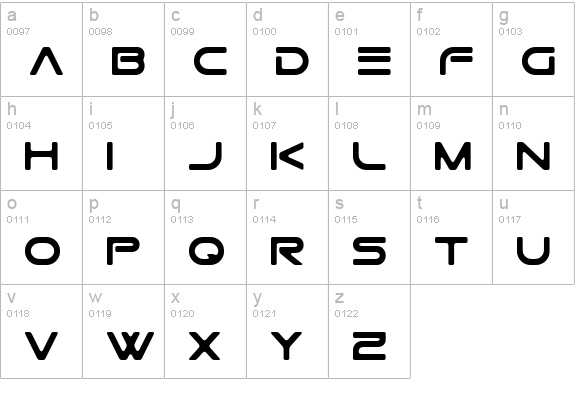
Gtek Technology Font Details
The Gtek Technology font is a modern and sleek typeface that perfectly captures the essence of technology and innovation. With its clean lines and sharp edges, this font exudes a sense of professionalism and sophistication. Designed with versatility in mind, Gtek Technology can be used for a wide range of design projects, from digital interfaces to print materials. Its futuristic appearance adds a touch of excitement and uniqueness to any design, making it stand out from the crowd. What sets Gtek Technology apart is that it is not only visually appealing but also accessible to everyone. This font is freely available to download at FontsMarket.com, allowing designers and enthusiasts alike to incorporate it into their projects without any hassle or cost. With its wide range of characters and symbols, Gtek Technology provides endless possibilities for creative expression. Whether you're designing a website, creating a logo, or developing an app, this font will help you achieve a modern and cutting-edge look. So why wait? Download Gtek Technology today from FontsMarket.com and elevate your designs to new heights. Embrace the future of typography and make a bold statement with this stunning font.